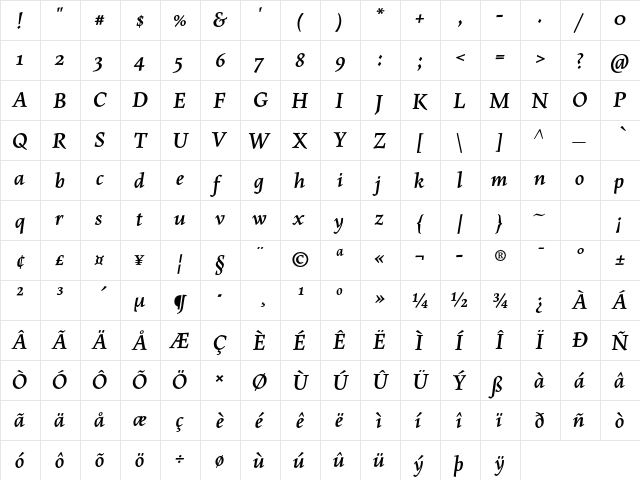
MaiolaPro Bold Italic
Design Context for MaiolaPro Typeface
MaiolaPro takes a measured approach to typography — its balanced proportions and neutral character make it a reliable workhorse for both digital and print work. The slanted form adds forward momentum and visual energy. The heavy weight commands attention and anchors typographic hierarchies.
Pro Tip: Use MaiolaPro for emphasis, pull quotes, and subheadings where its slanted energy can add rhythm to the layout.